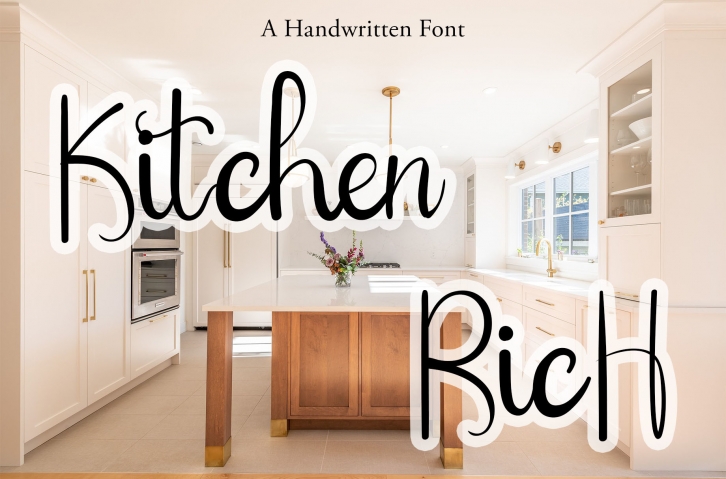
Kitchen Rich is a romantic, elegant, and sweet handwritten font with characters that dance along the baseline. It will add a luxury spark to any design project that you wish to create!